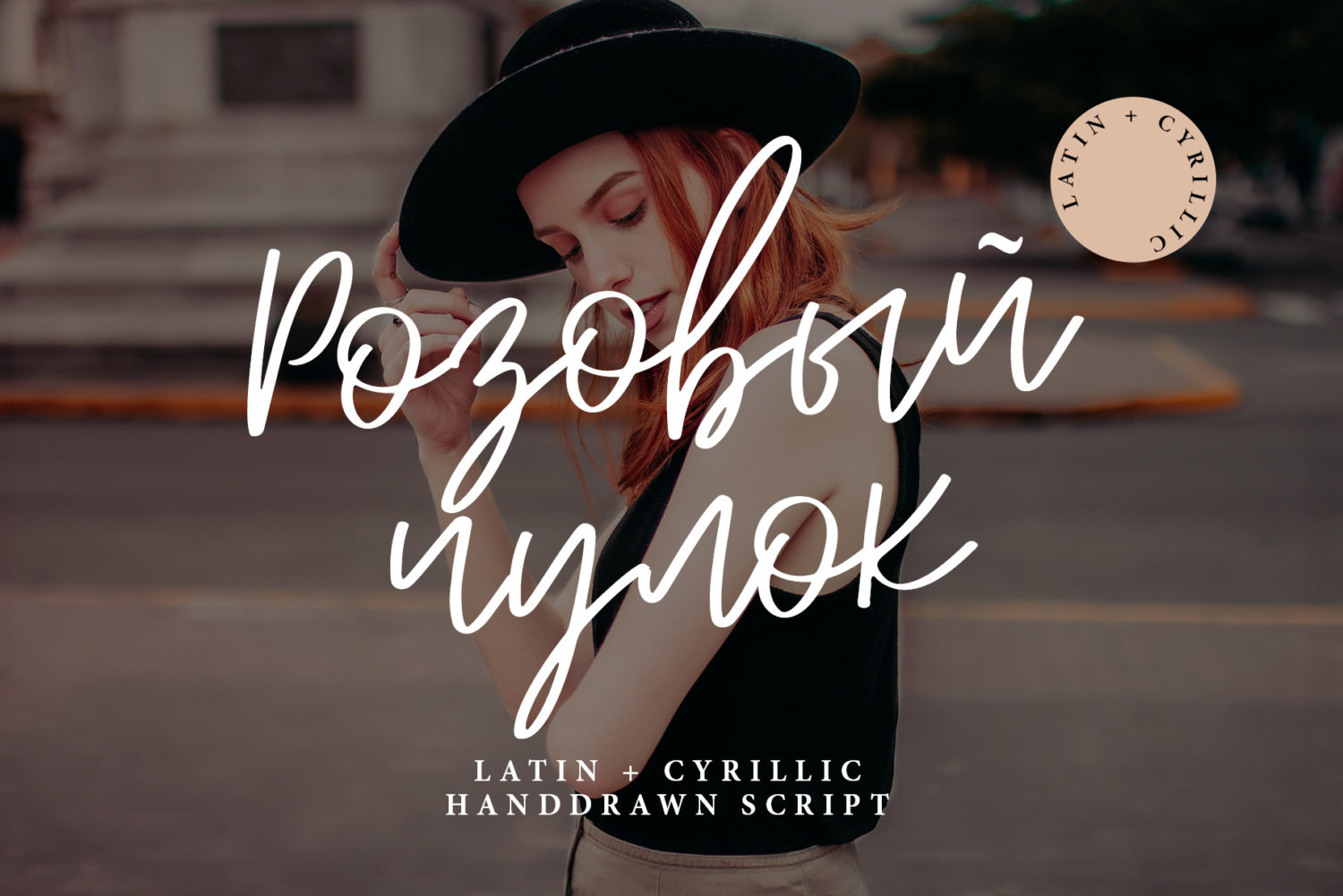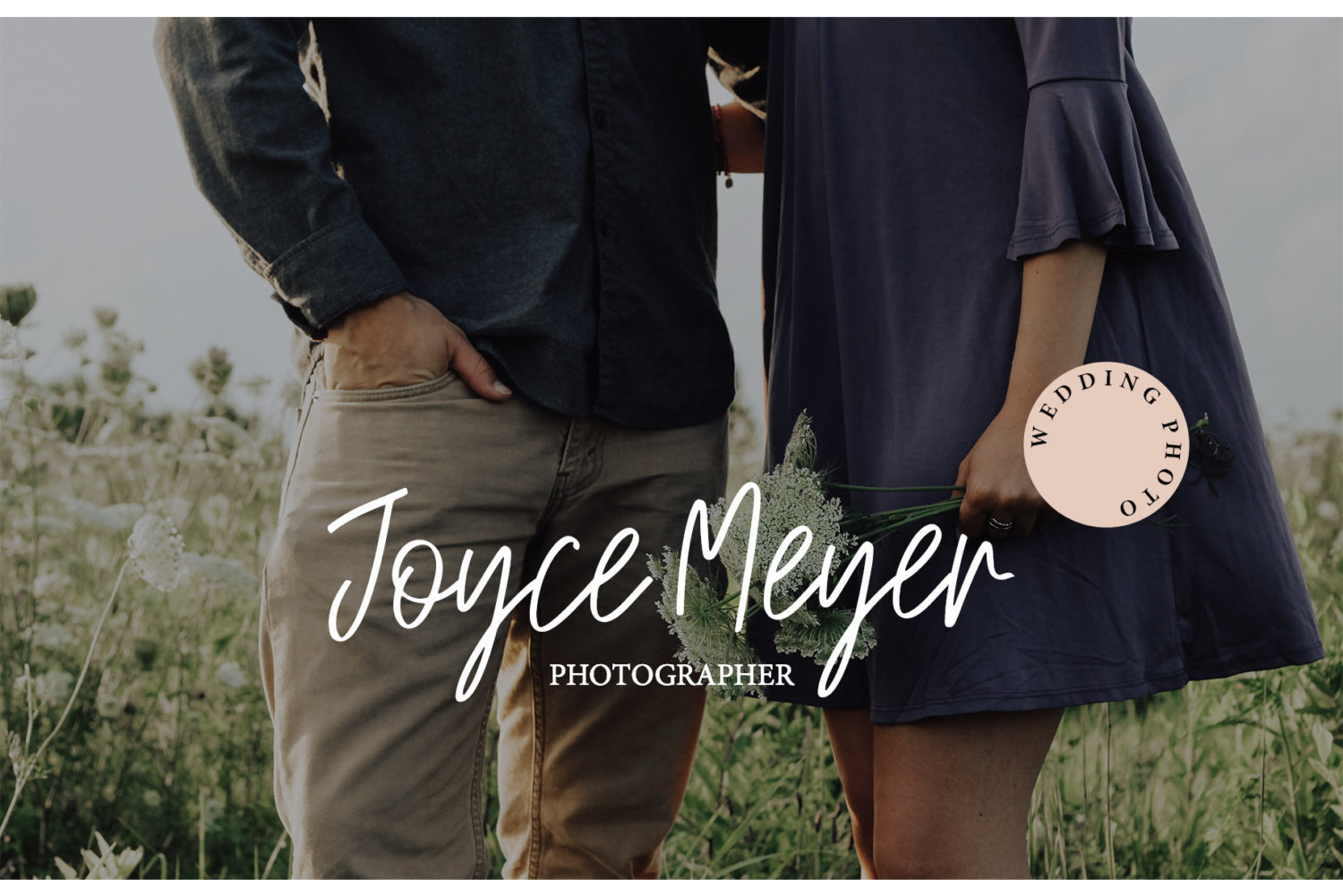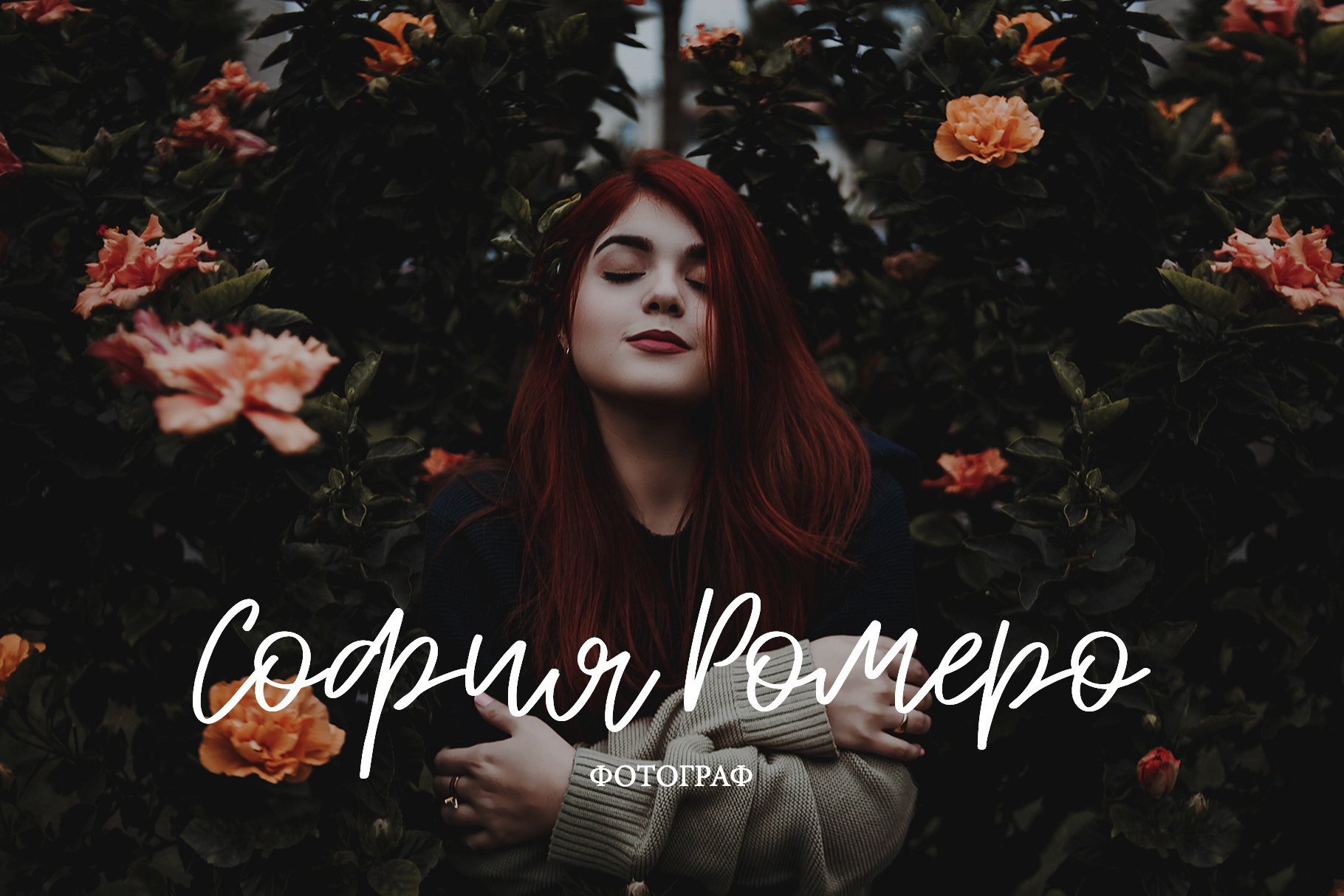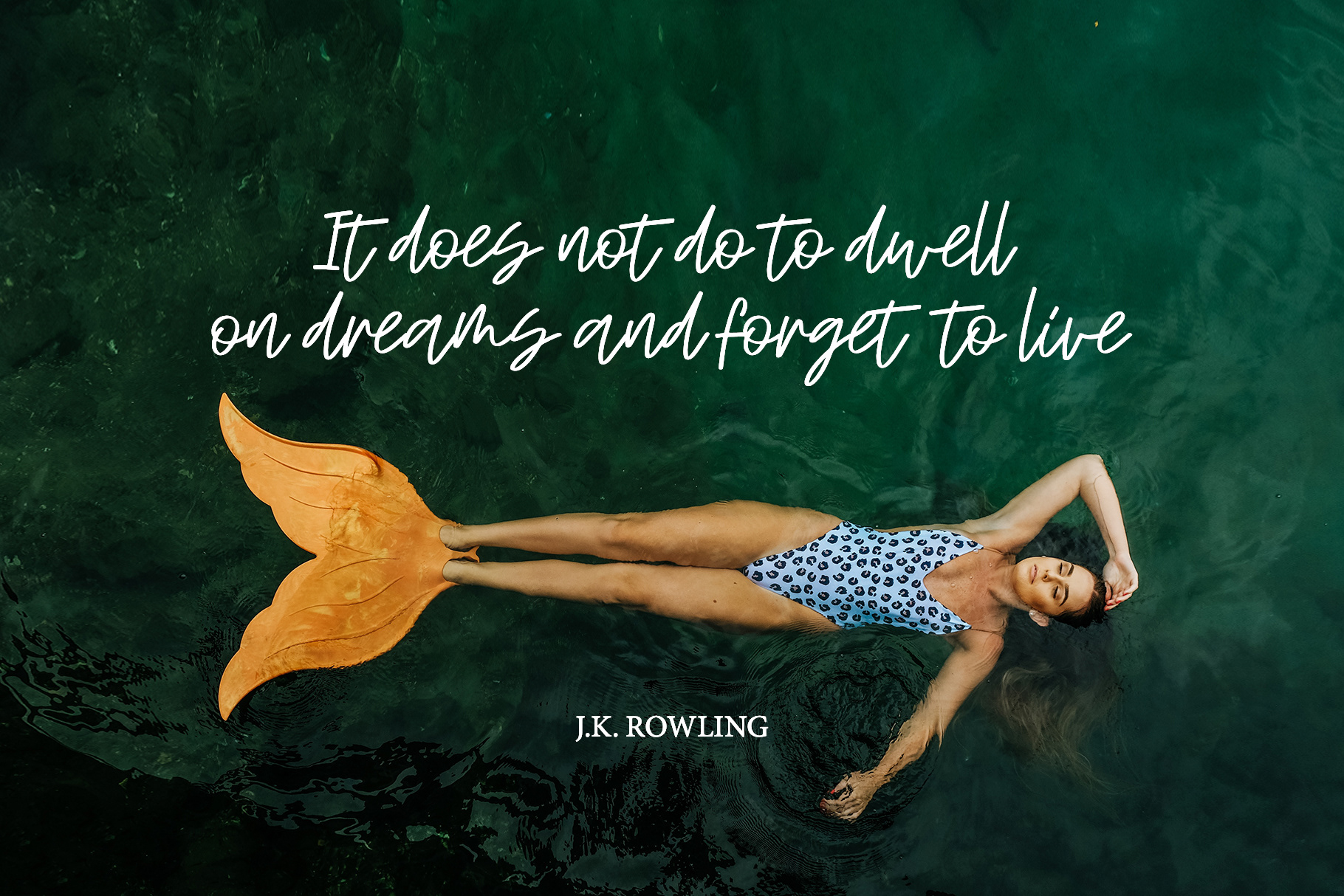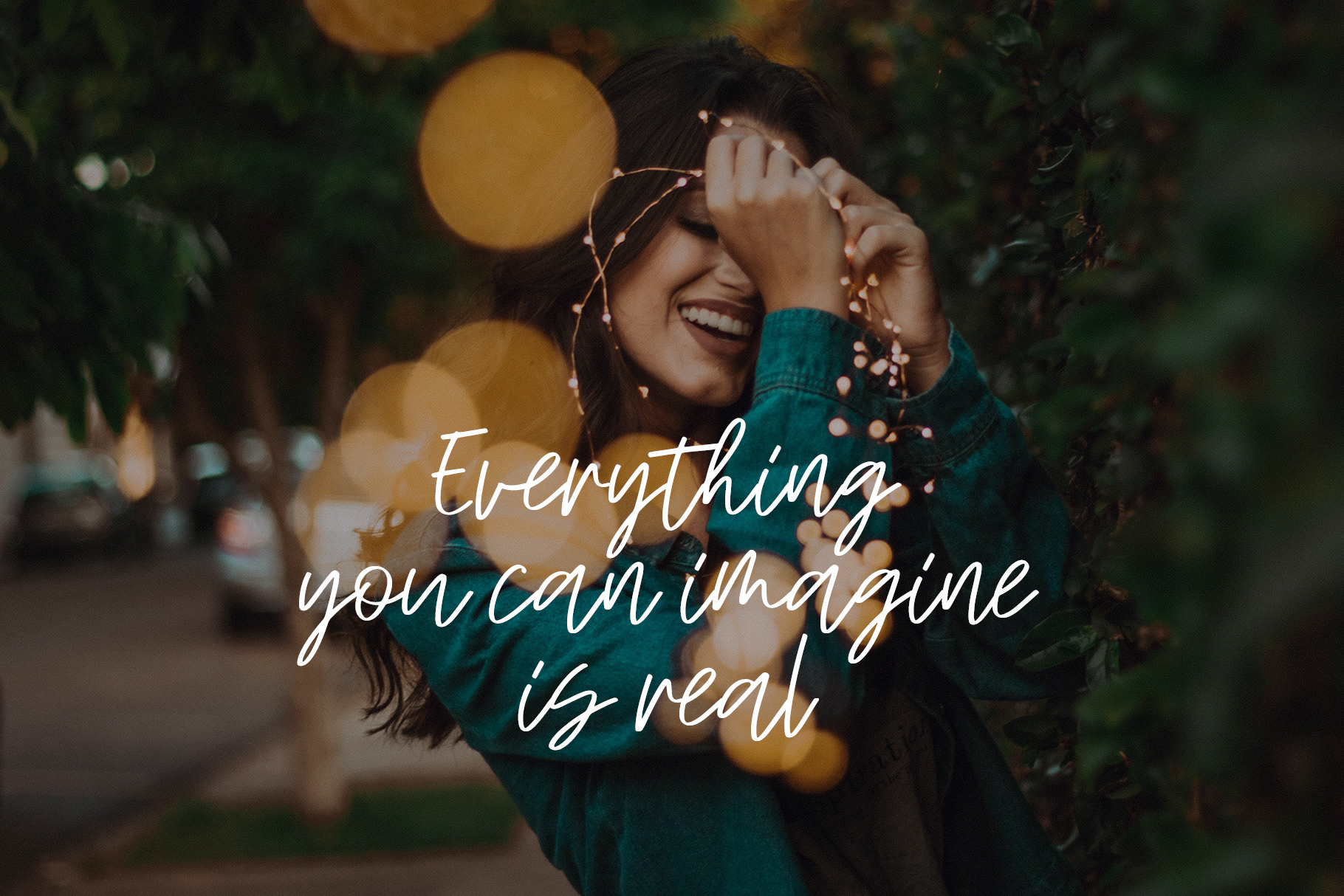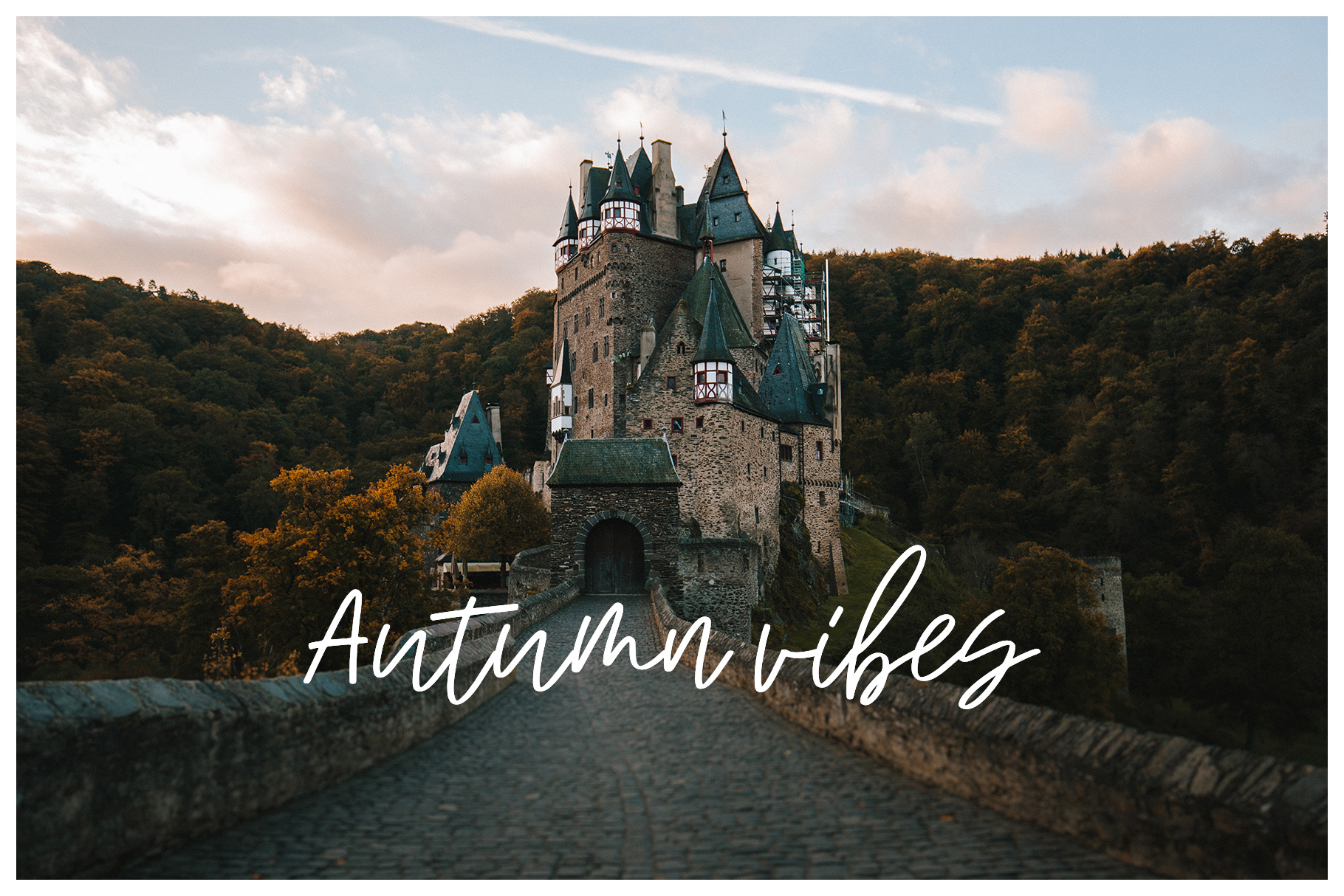
Rozovii Chulok Free Font
Rozovii chulok free font is a casual marker font with a non-permanent baseline. I’m tired of the monotony, too. Our dear designers use either Helvetica or lemon Tusday, shove it anywhere and already sickening to look at the monotony of each poster. Is there an alternative? Now Yes πŸ™‚
This is my contribution to the industry. Catch the font is absolutely free, use and enjoy. The font is calledΒ ROZOVII CHULOK and contains Latin and Cyrillic layouts + all necessary symbols. Font artist: Dmitriy Chirkov.